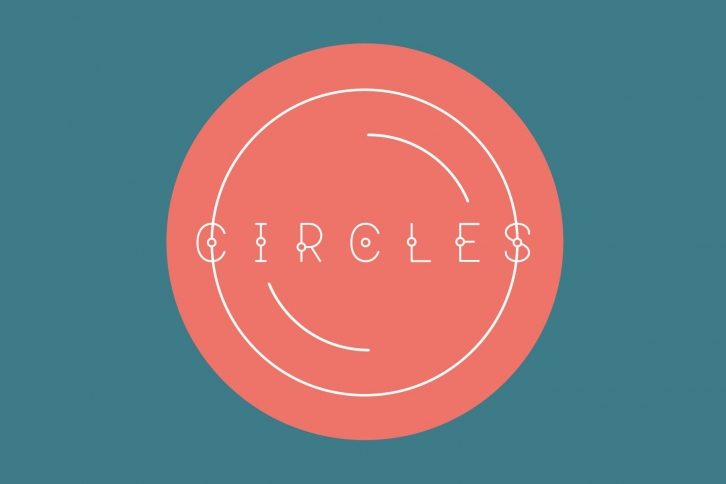
Circles – only vector alphabet with round element in 4 different styles. All around round :)
Variations
- Main (1st on Preview)
- Shadow
- Stroke
- Color Dots
- Uppercase Character
- Latin Letters